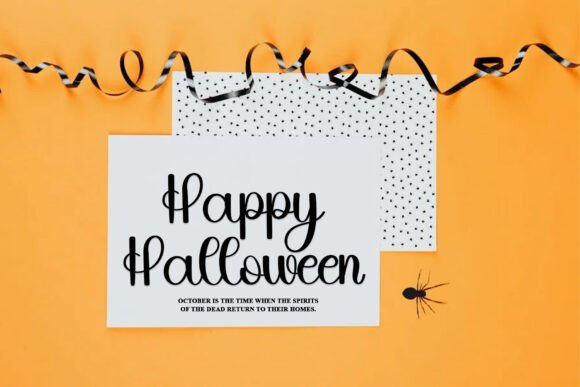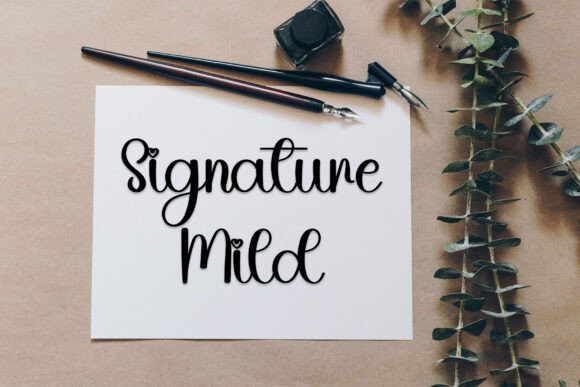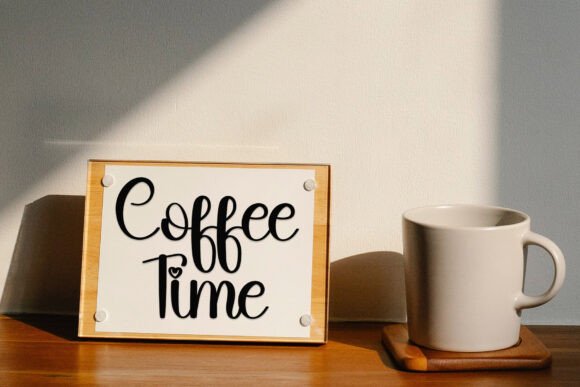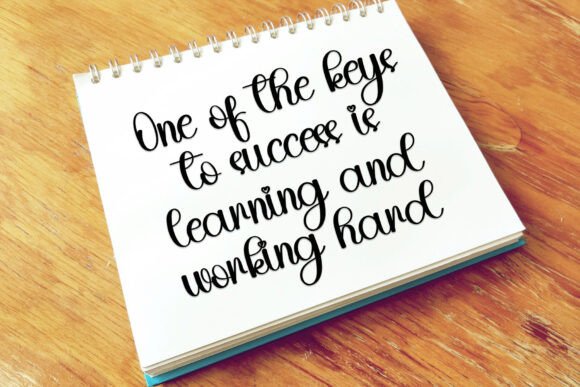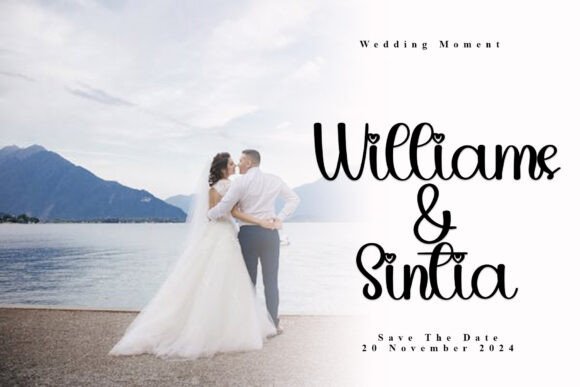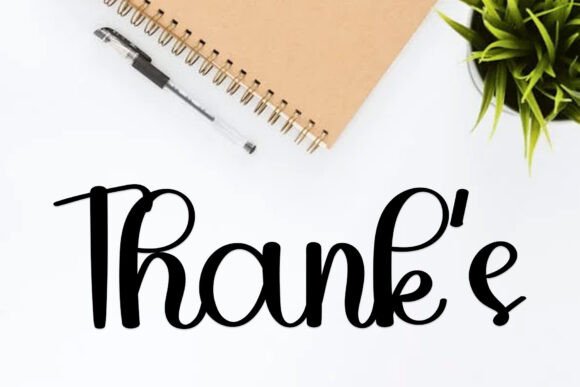
Babyish Font: Elevate Your Designs with a Timeless Classic
In the world of typography, fonts play a crucial role in conveying the tone and aesthetic of a design. For designers and crafters seeking a stylish and contemporary handwritten font, Babyish Font is an excellent choice. Inspired by timeless classic calligraphy, Babyish Font brings a touch of elegance and sophistication to any project.
What is Babyish Font?
Babyish Font is a beautifully crafted handwritten font that exudes a sense of modernity and refinement. Its design is rooted in traditional calligraphy, yet it boasts a fresh and contemporary atmosphere that sets it apart from more traditional fonts. With its impeccable form and balanced structure, Babyish Font is perfect for designers looking to add a touch of class to their projects.
Key Features of Babyish Font
- PUA Encoded: Babyish Font is PUA (Private Use Area) encoded, which means that accessing the font’s extensive range of glyphs and ligatures is incredibly easy. This feature allows designers to unlock the full creative potential of the font.
- Balanced and Varied: The font’s design is carefully balanced and varied, ensuring that it can be used for a wide range of projects, from elegant headings to beautiful body text.
- Handwritten with a Contemporary Twist: Babyish Font’s handwritten style is infused with a modern sensibility, making it perfect for designers seeking a font that is both stylish and approachable.
Why Choose Babyish Font?
With so many fonts available, why should designers and crafters choose Babyish Font? Here are just a few compelling reasons:
- Enhance the Beauty of Your Projects: Babyish Font is designed to elevate the aesthetic of any project, adding a touch of sophistication and elegance.
- Easy to Use: The font’s PUA encoding makes it simple to access the full range of glyphs and ligatures, allowing designers to focus on the creative process.
- Versatile: Babyish Font is suitable for a wide range of projects, including branding, packaging, stationery, and digital designs.
How to Use Babyish Font in Your Designs
Using Babyish Font in your designs is straightforward. Here are a few tips to get you started:
- Pair it with Other Fonts: Experiment with pairing Babyish Font with other fonts to create stunning contrast and visual interest.
- Play with Glyphs and Ligatures: Take advantage of the font’s PUA encoding to access the full range of glyphs and ligatures, adding a touch of personality to your designs.
- Use it for Headings and Body Text: Babyish Font is suitable for both headings and body text, making it a versatile addition to any design project.
In conclusion, Babyish Font is a stylish and contemporary handwritten font that is perfect for designers and crafters seeking to elevate the aesthetic of their projects. With its impeccable form, balanced structure, and PUA encoding, Babyish Font is an excellent choice for anyone looking to add a touch of elegance and sophistication to their designs.
For designers and crafters looking to get the most out of Babyish Font, here are a few final tips:
- Experiment with Different Sizes and Colors: Don’t be afraid to experiment with different sizes and colors to find the perfect combination for your project.
- Use it to Create a Cohesive Brand Identity: Babyish Font can be used to create a cohesive brand identity, adding a touch of personality and sophistication to your designs.
- Combine it with Other Design Elements: Combine Babyish Font with other design elements, such as illustrations and graphics, to create stunning visual interest.